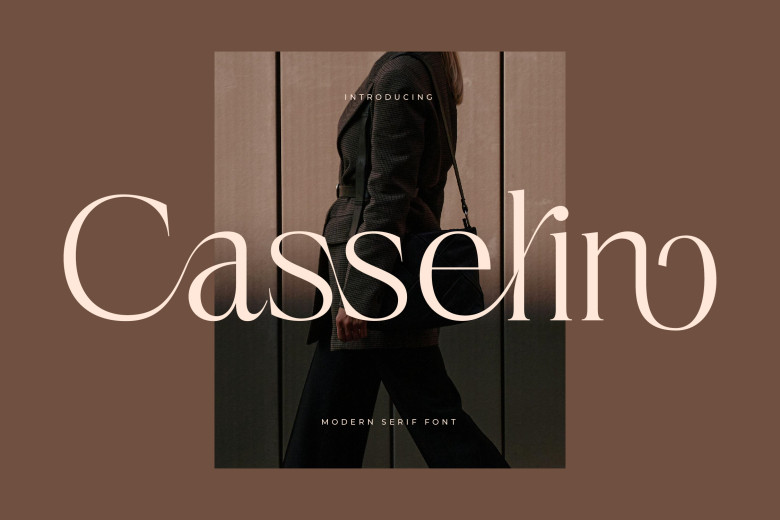
Casselin Font
Casselin is a stylish, contemporary serif typeface that blends modernity with sophistication. With its clean lines and well-balanced proportions, this font is well suited for editorial designs as well as logos, branding, and branding applications. Thanks to its timeless appeal and versatility, Casselin elevates any project by adding elegance and professionalism.
Casselin Serif Font